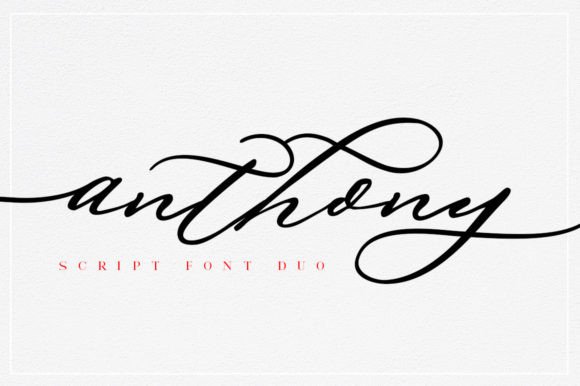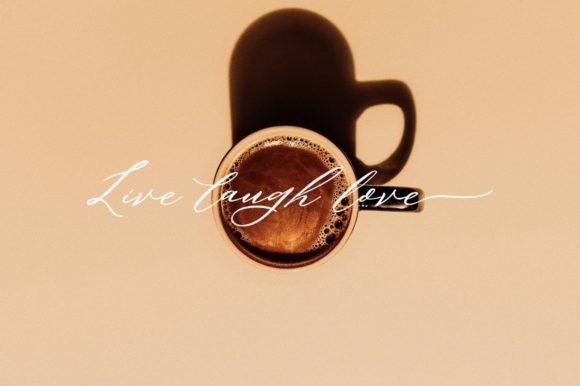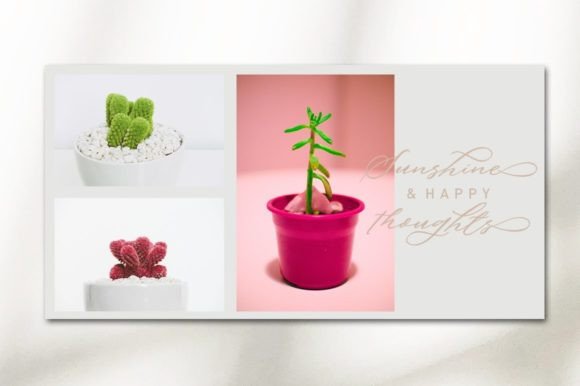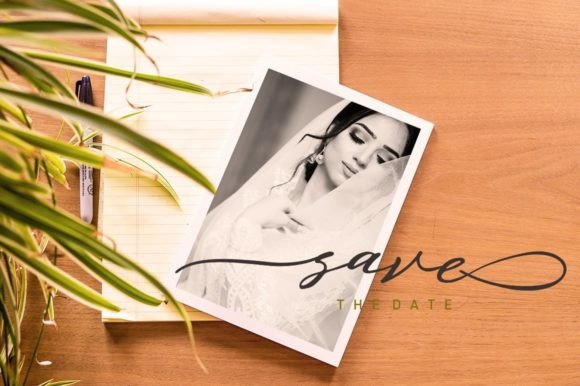
About Anthony Font
“Anthony” is not just a font; it’s a versatile brush font duo that includes both a script and handwritten style, adorned with a plethora of alternates and ligatures. This duo boasts a luxurious and elegant appearance, characterized by a dancing baseline that adds a touch of dynamism to your text. The mix-and-match potential between the two styles allows for harmonious creativity in your design projects. “Anthony” is particularly well-suited for Branding, Logos, Greeting Cards, Weddings, Stationery, Quotes, and more.
The brush font duo’s script and handwritten styles offer a rich variety of design possibilities. The luxurious and elegant aesthetic is evident in the careful crafting of each letter, and the dancing baseline adds a dynamic and visually pleasing quality to the overall typeface. This attention to detail ensures that “Anthony” is not just a font but a design asset that exudes sophistication.
The versatility of “Anthony” becomes apparent when mixing and matching the two styles. This feature allows for a seamless integration of the script and handwritten elements, enabling designers to create visually cohesive and harmonious designs across a range of projects.
Whether you’re working on branding materials, logos, or stationery, “Anthony” stands out as a font duo that elevates the visual appeal of your creations. Its suitability for greeting cards, weddings, and quotes showcases its ability to convey a sense of elegance and style in diverse design contexts.
The PUA encoding feature of “Anthony” is a valuable addition, providing easy access to all the glyphs and swashes. This encoding enhances the user experience, allowing for effortless customization and personalization of your designs.
In summary, “Anthony” is more than just a font; it’s a sophisticated brush font duo that adds a luxurious and elegant touch to your creative projects. Embrace its mix-and-match potential for versatile design applications, confident that “Anthony” will bring a harmonious and stylish vibe to your Branding, Logos, Greeting Cards, Weddings, Stationery, Quotes, and more.